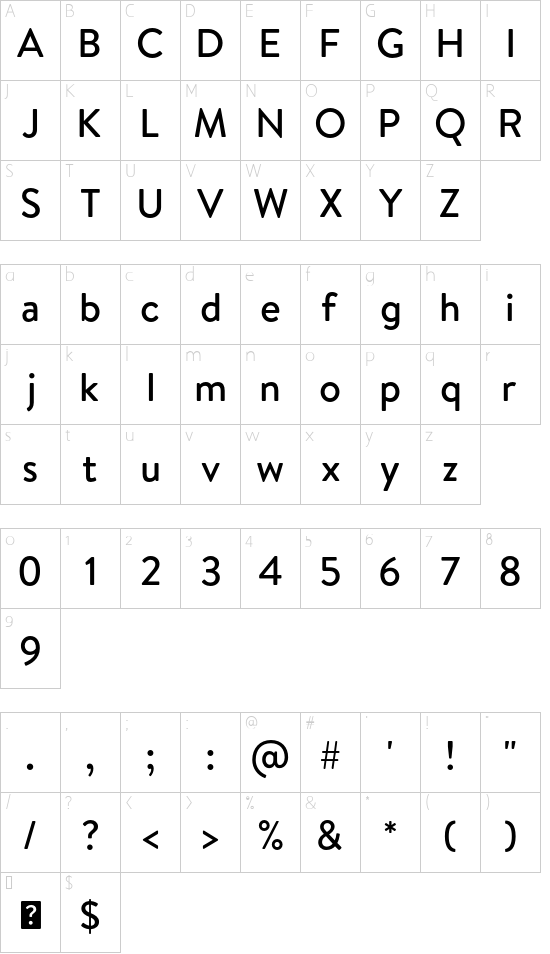
Brandon Text Font - A sans serif typeface with 12 styles, available from adobe fonts for sync and web use. Brandon text is a companion of brandon grotesque, optimized for long texts, small sizes. Brandon text font family, is the companion of the famous brandon grotesque. Brandon text is the companion of the famous brandon grotesque type family.
Brandon text is the companion of the famous brandon grotesque type family. A sans serif typeface with 12 styles, available from adobe fonts for sync and web use. Brandon text is a companion of brandon grotesque, optimized for long texts, small sizes. Brandon text font family, is the companion of the famous brandon grotesque.
Brandon text is the companion of the famous brandon grotesque type family. A sans serif typeface with 12 styles, available from adobe fonts for sync and web use. Brandon text font family, is the companion of the famous brandon grotesque. Brandon text is a companion of brandon grotesque, optimized for long texts, small sizes.
Brandon text font family, is the companion of the famous brandon grotesque. Brandon text is a companion of brandon grotesque, optimized for long texts, small sizes. Brandon text is the companion of the famous brandon grotesque type family. A sans serif typeface with 12 styles, available from adobe fonts for sync and web use.
Brandon text font family, is the companion of the famous brandon grotesque. A sans serif typeface with 12 styles, available from adobe fonts for sync and web use. Brandon text is a companion of brandon grotesque, optimized for long texts, small sizes. Brandon text is the companion of the famous brandon grotesque type family.
A sans serif typeface with 12 styles, available from adobe fonts for sync and web use. Brandon text is the companion of the famous brandon grotesque type family. Brandon text is a companion of brandon grotesque, optimized for long texts, small sizes. Brandon text font family, is the companion of the famous brandon grotesque.
Brandon text is the companion of the famous brandon grotesque type family. A sans serif typeface with 12 styles, available from adobe fonts for sync and web use. Brandon text is a companion of brandon grotesque, optimized for long texts, small sizes. Brandon text font family, is the companion of the famous brandon grotesque.
Brandon Text Medium font details
Brandon text is the companion of the famous brandon grotesque type family. Brandon text is a companion of brandon grotesque, optimized for long texts, small sizes. Brandon text font family, is the companion of the famous brandon grotesque. A sans serif typeface with 12 styles, available from adobe fonts for sync and web use.
Brandon text is the companion of the famous brandon grotesque type family. A sans serif typeface with 12 styles, available from adobe fonts for sync and web use. Brandon text font family, is the companion of the famous brandon grotesque. Brandon text is a companion of brandon grotesque, optimized for long texts, small sizes.
A sans serif typeface with 12 styles, available from adobe fonts for sync and web use. Brandon text font family, is the companion of the famous brandon grotesque. Brandon text is a companion of brandon grotesque, optimized for long texts, small sizes. Brandon text is the companion of the famous brandon grotesque type family.
Brandon Text Font FreeDaFonts
Brandon text font family, is the companion of the famous brandon grotesque. Brandon text is the companion of the famous brandon grotesque type family. A sans serif typeface with 12 styles, available from adobe fonts for sync and web use. Brandon text is a companion of brandon grotesque, optimized for long texts, small sizes.
Brandon Text Medium Font Family Download Free for Desktop & Webfont
Brandon text is the companion of the famous brandon grotesque type family. Brandon text is a companion of brandon grotesque, optimized for long texts, small sizes. A sans serif typeface with 12 styles, available from adobe fonts for sync and web use. Brandon text font family, is the companion of the famous brandon grotesque.
Brandon Text Font Free Download
A sans serif typeface with 12 styles, available from adobe fonts for sync and web use. Brandon text font family, is the companion of the famous brandon grotesque. Brandon text is the companion of the famous brandon grotesque type family. Brandon text is a companion of brandon grotesque, optimized for long texts, small sizes.
Brandon Text Font Family, Is The Companion Of The Famous Brandon Grotesque.
Brandon text is a companion of brandon grotesque, optimized for long texts, small sizes. A sans serif typeface with 12 styles, available from adobe fonts for sync and web use. Brandon text is the companion of the famous brandon grotesque type family.